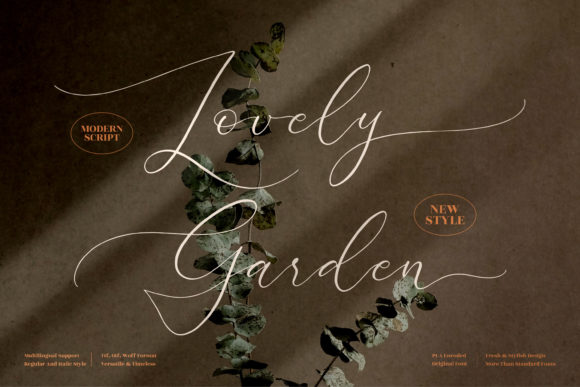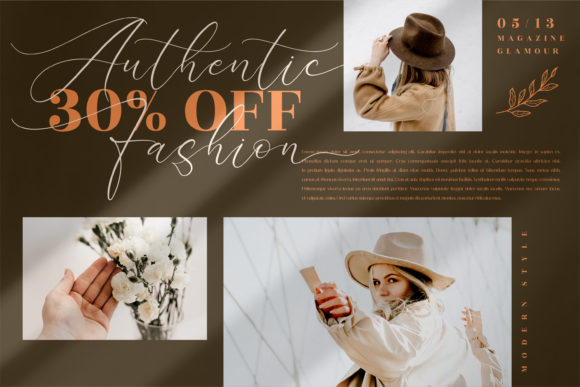
Lovely Garden Font
Lovely Garden is a romantic and thin lettered calligraphy font with characters that dance along the baseline. It will add a luxury spark to any design project that you wish to create! This font is PUA encoded which means you can access all of the amazing glyphs and ligatures with ease!